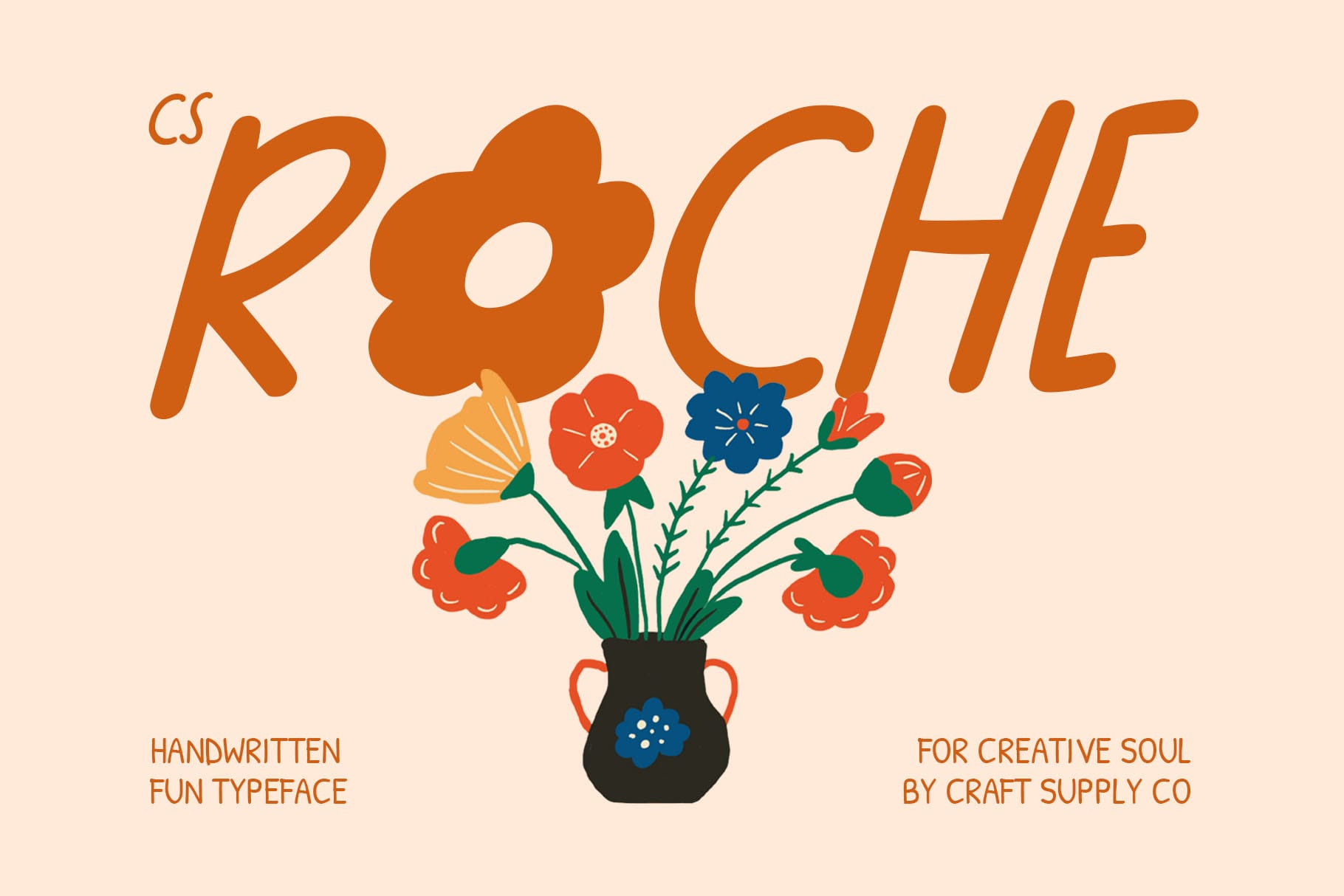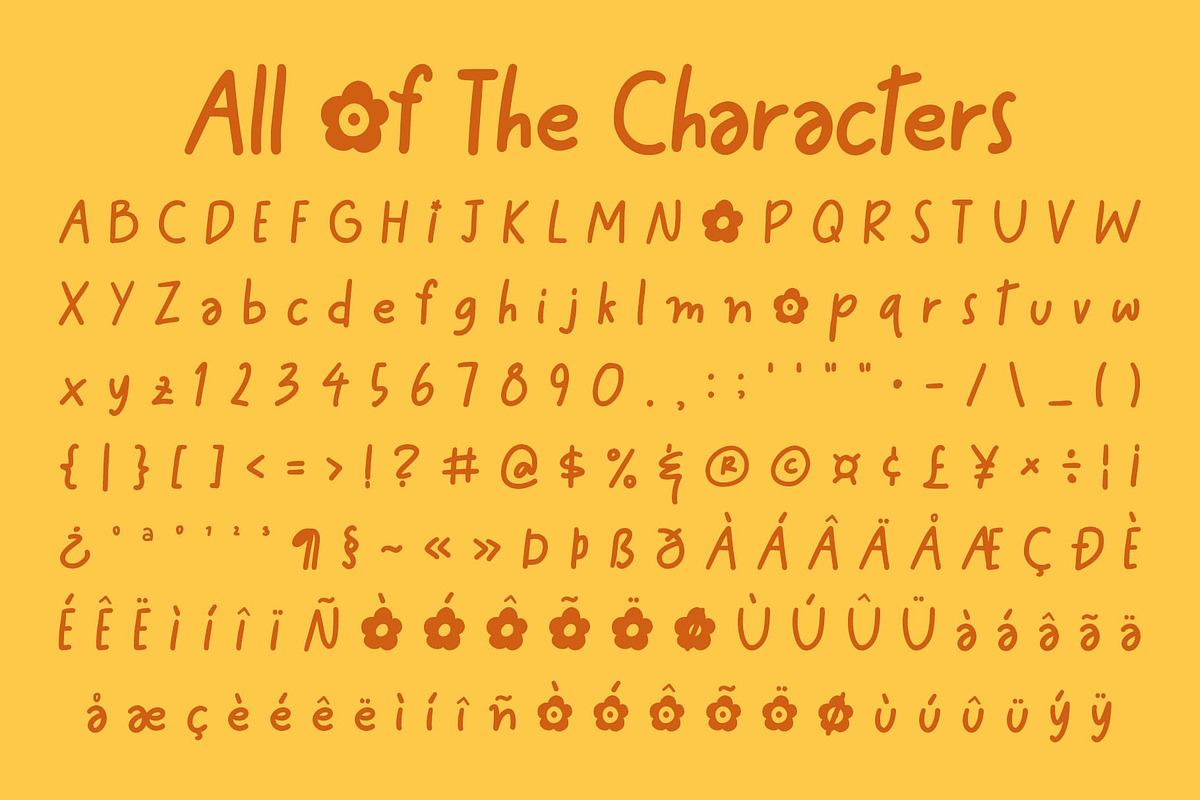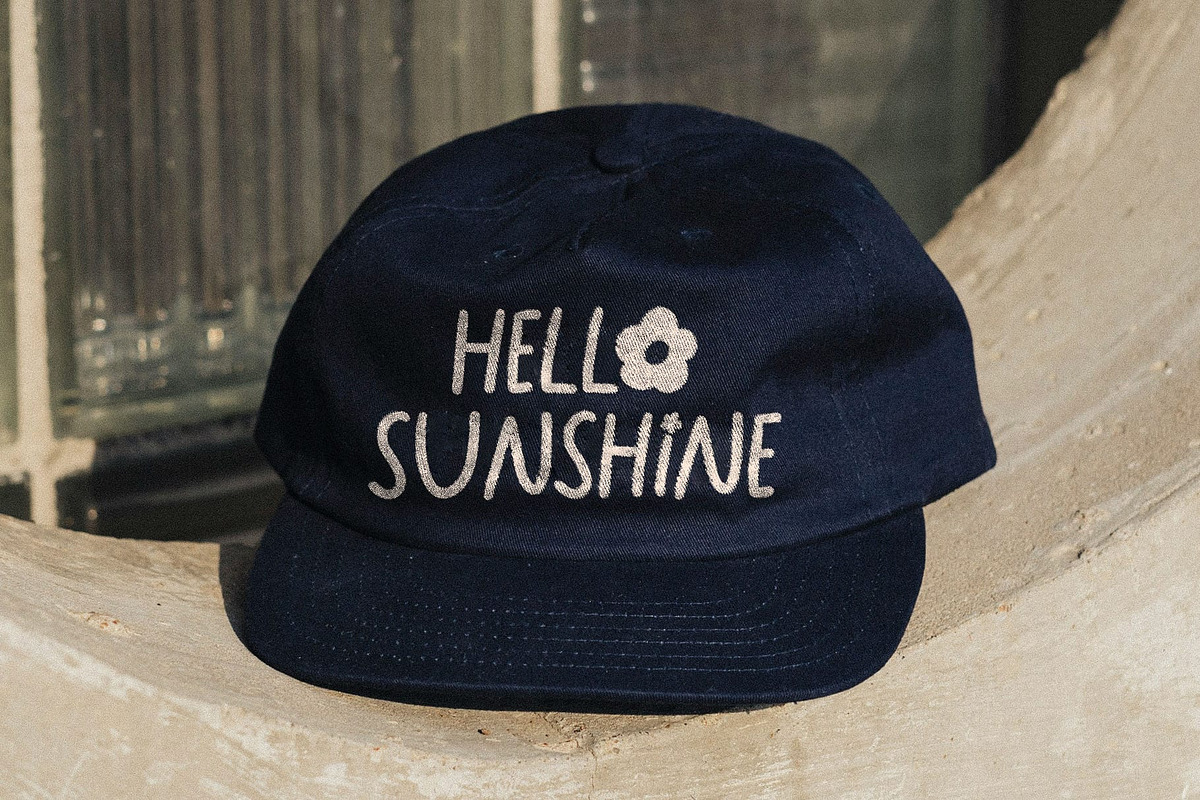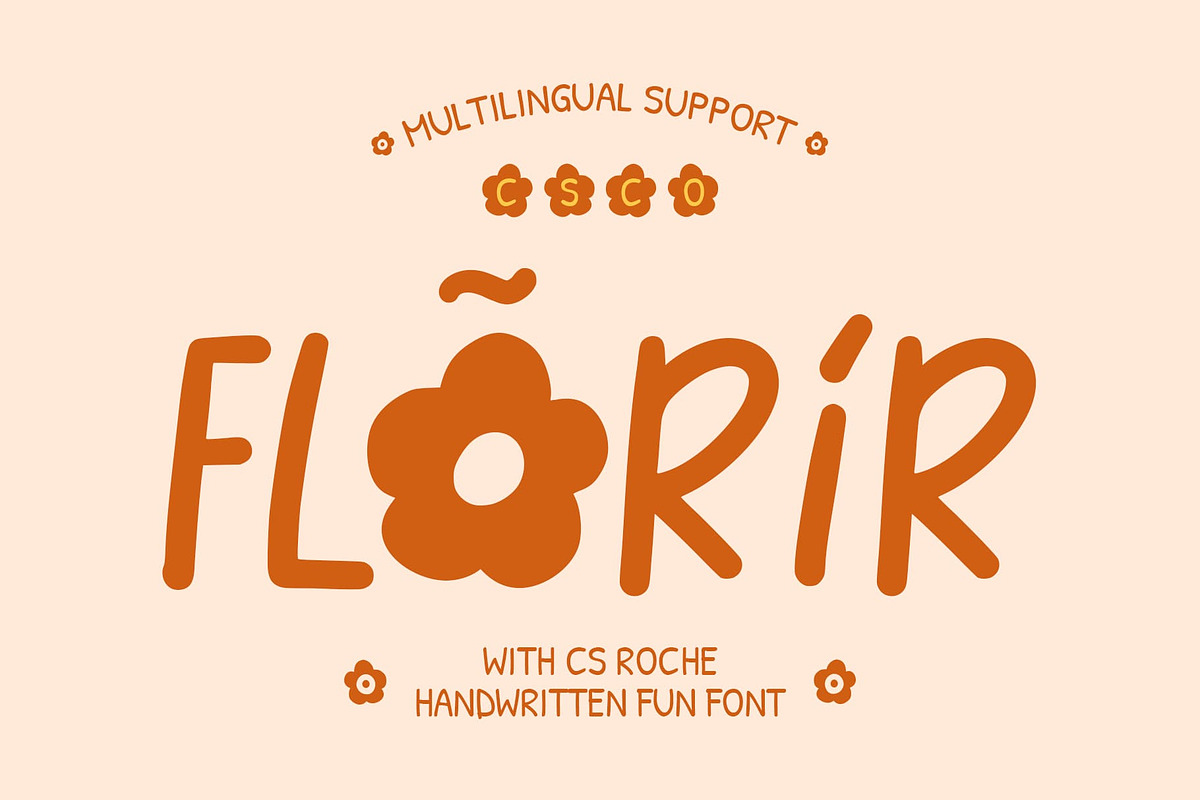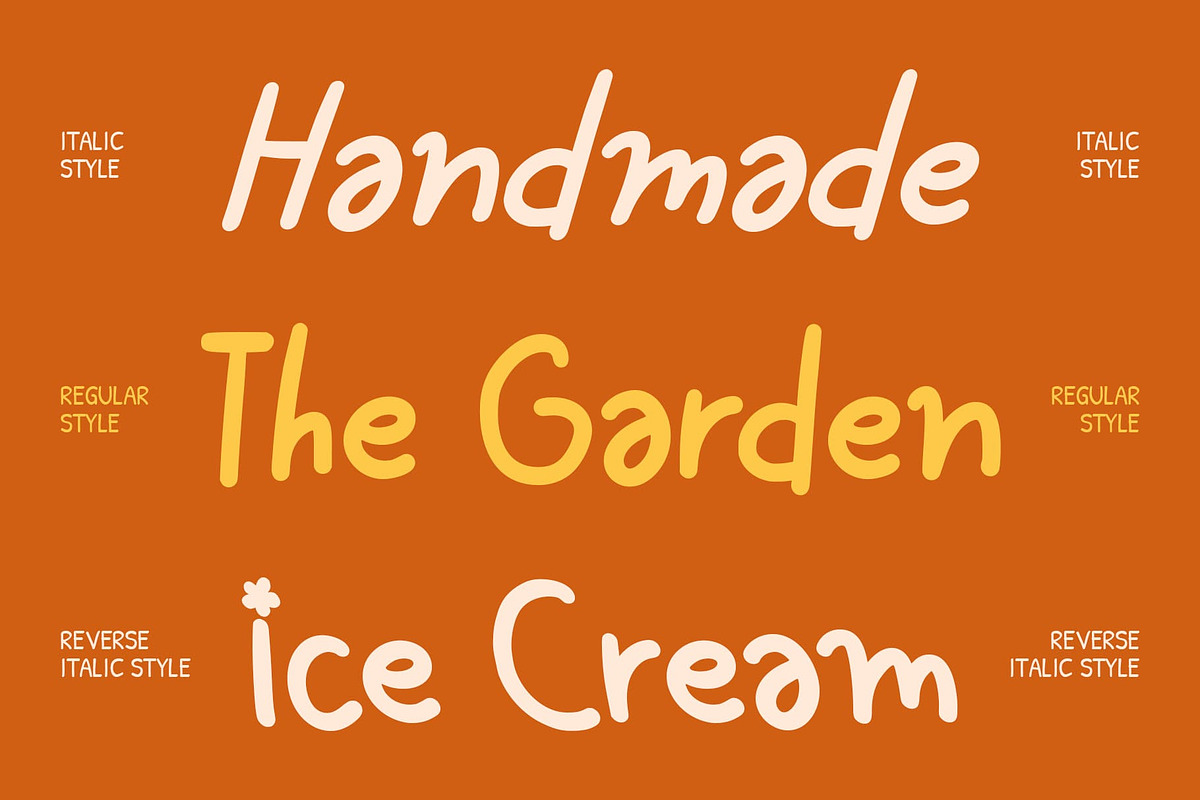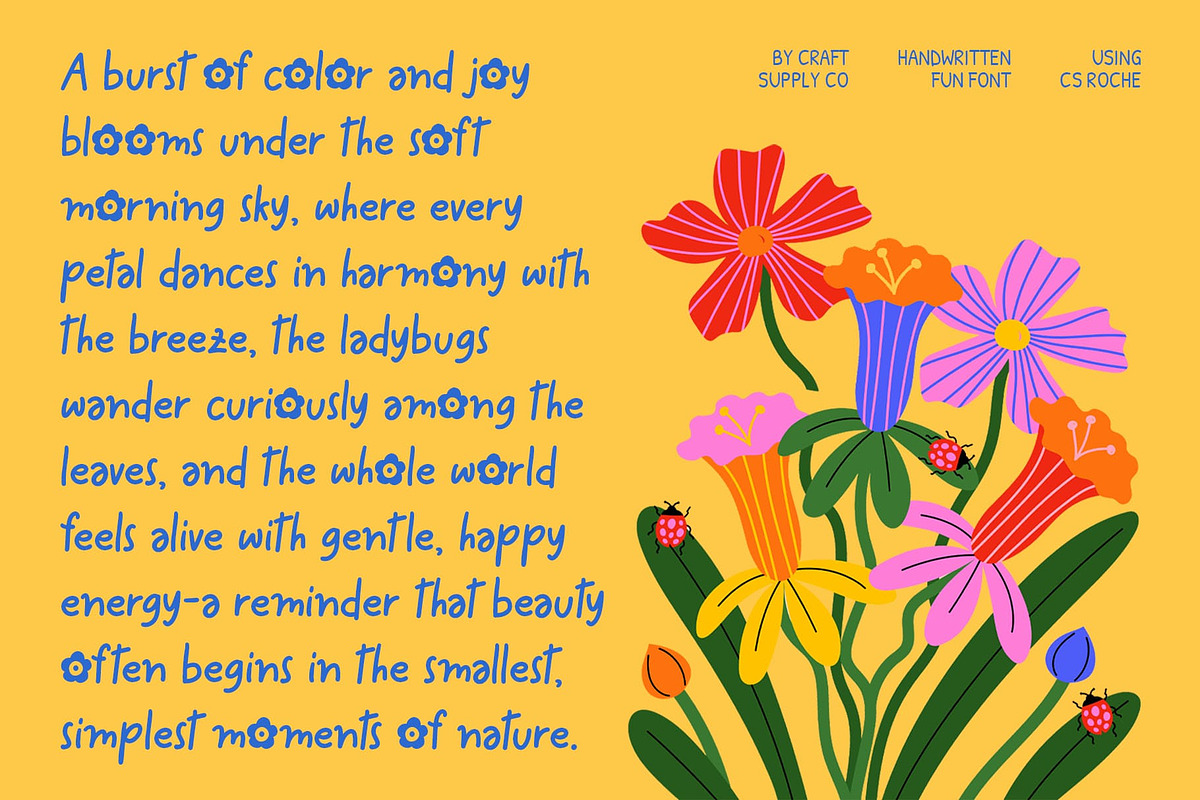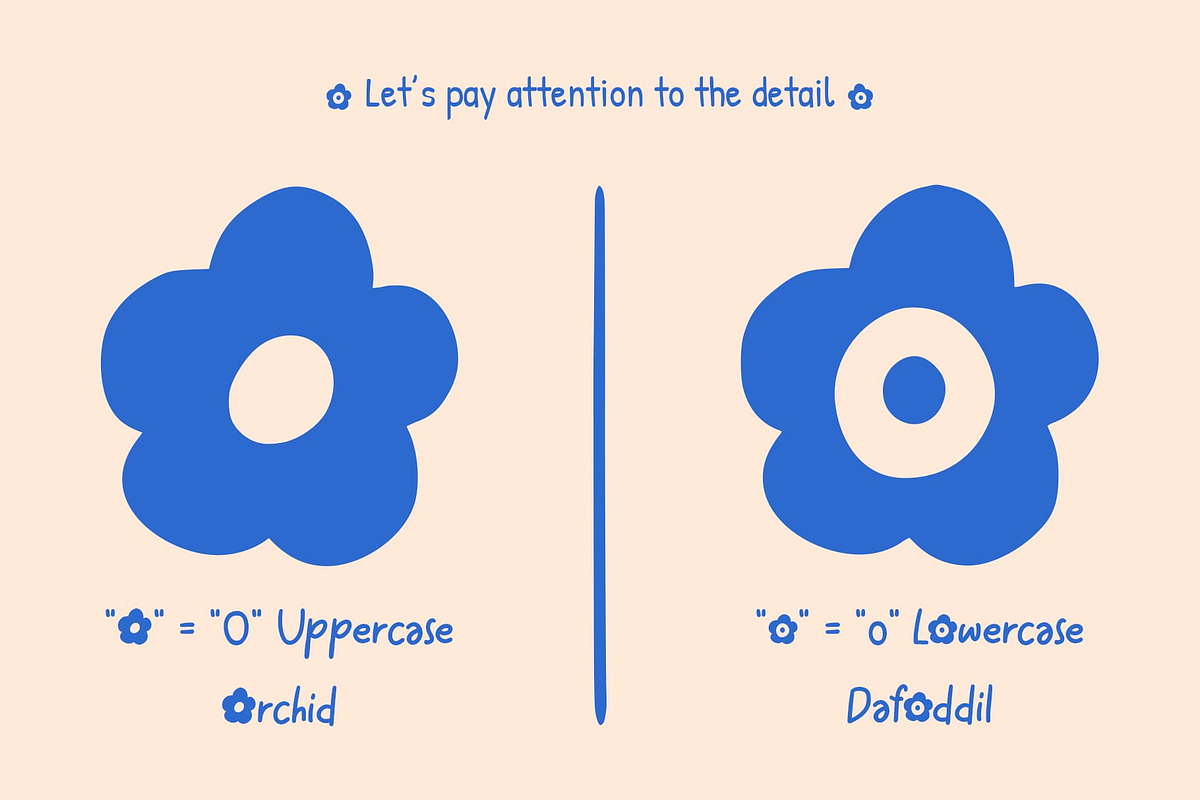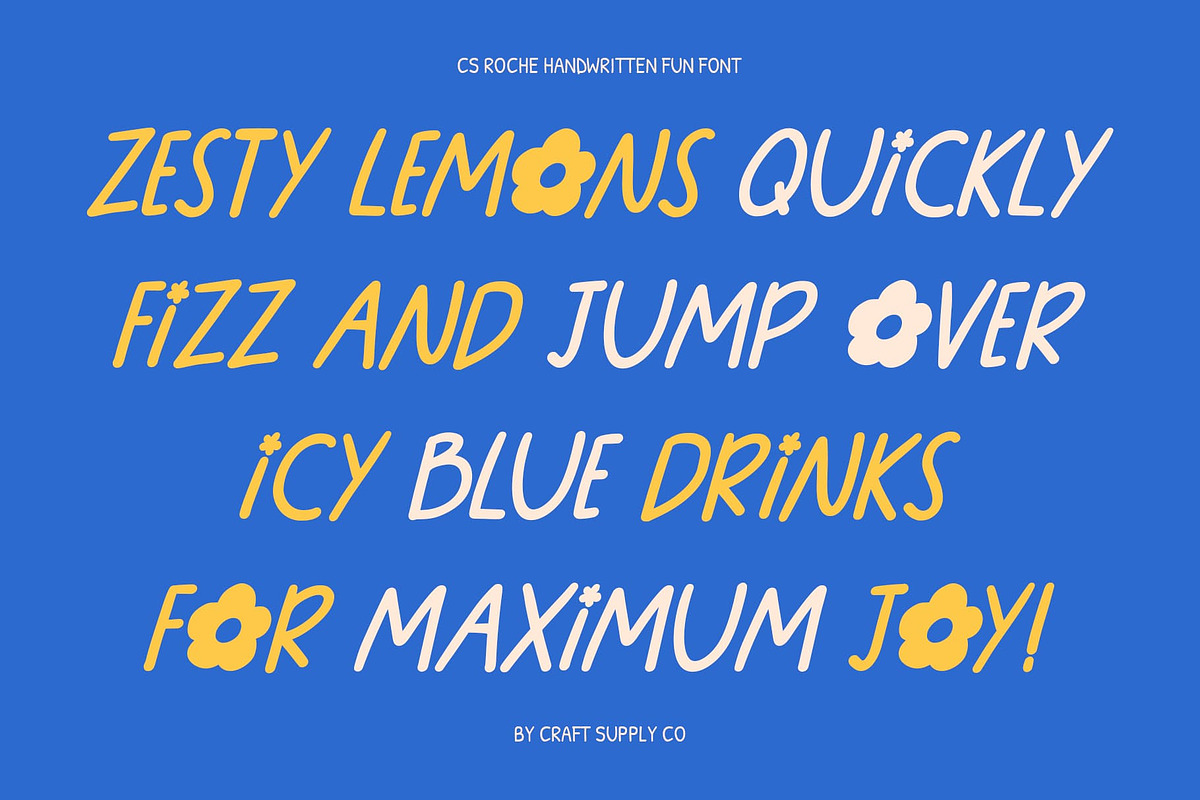
CS Roche – Fun Handwritten Font
CS Roche – Playful Handwritten Charm Inspired by Nature
Fun Handwritten Font with Fresh Personality This is a fun handwritten font designed to radiate warmth, creativity, and approachability. Its lively strokes, organic flow and sans serif font capture the spirit of spontaneity, while the subtle inspiration from flowers adds a touch of natural freshness. This combination makes this font perfect for designs that want to feel joyful, personal, and full of life.
Natural Flow with Expressive Energy Every letter in this font carries a sense of motion and emotion, like handwriting crafted with care and personality. The smooth curves and playful rhythm bring a friendly tone that invites readers in, making it ideal for lighthearted yet professional design work.
Floral Inspiration for a Playful Touch Inspired by the gentle forms of flowers, this font reflects natural beauty and softness. The floral influence gives it a refreshing character that feels organic and alive perfect for creative projects that want to express joy, growth, and positivity.
Perfect for Modern, Fun, and Expressive Designs From branding and packaging to posters and editorial layouts, this font adapts effortlessly to playful, creative settings. Its expressive energy and casual charm make it a go-to choice for designers looking to add personality and freshness to their visual storytelling.
- CS Roche Regular
- CS Roche Italic
- CS Roche Reverse Italic